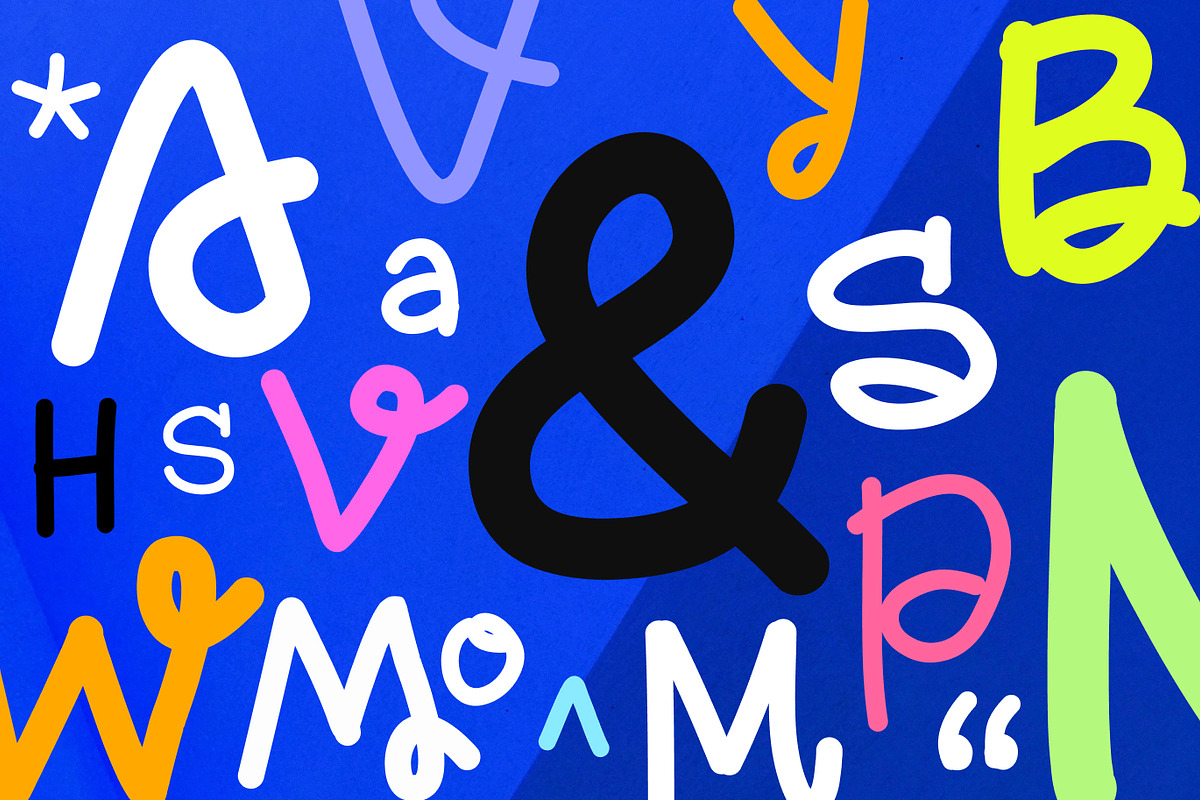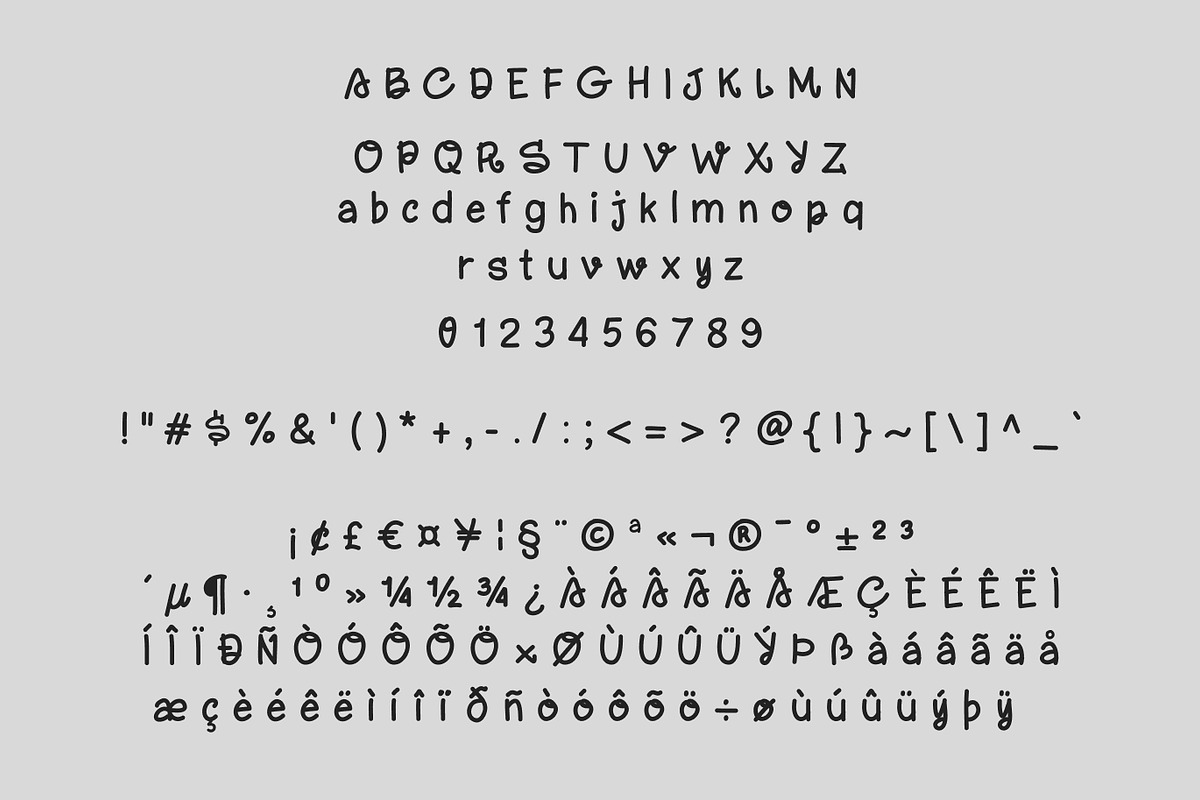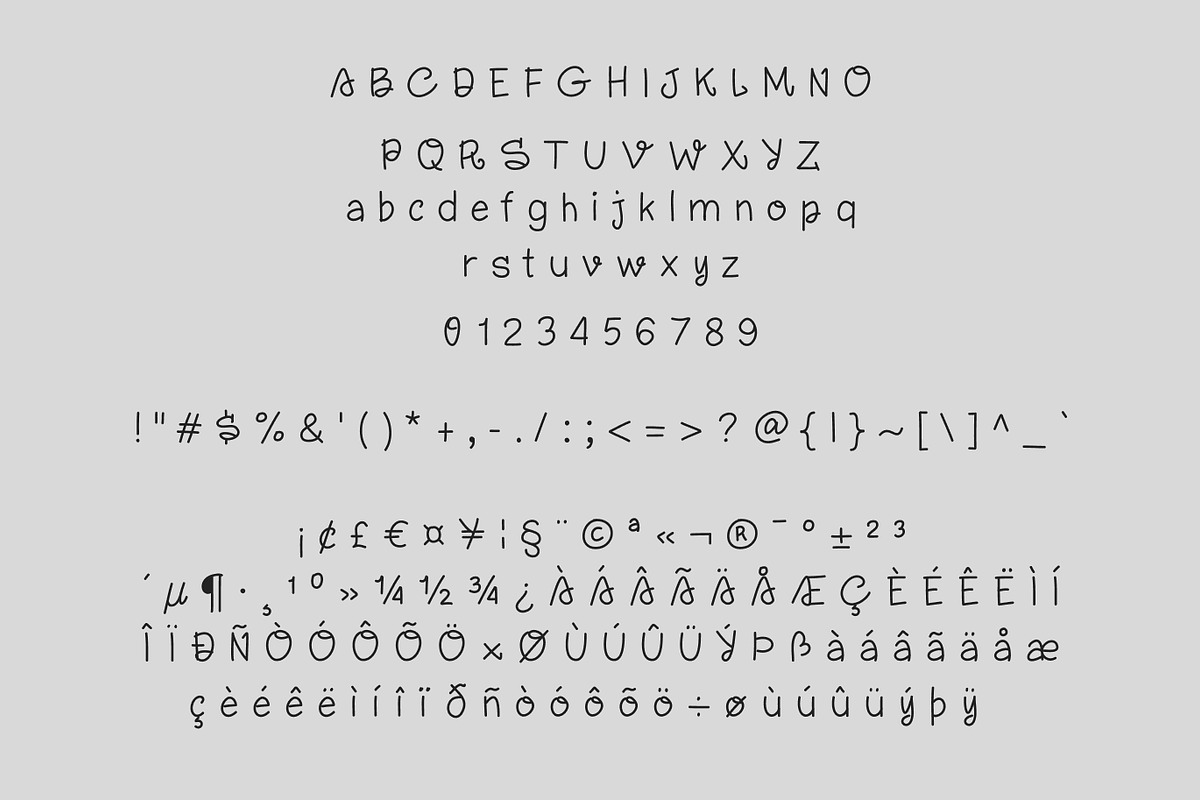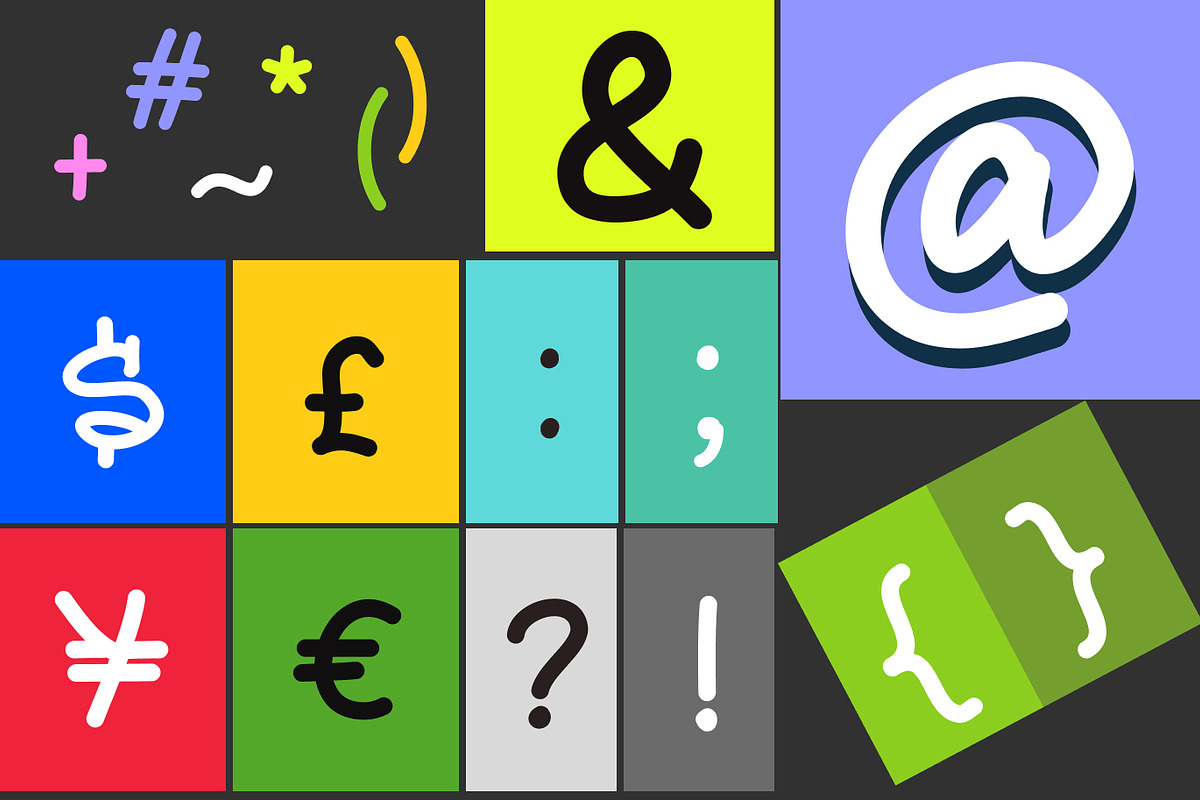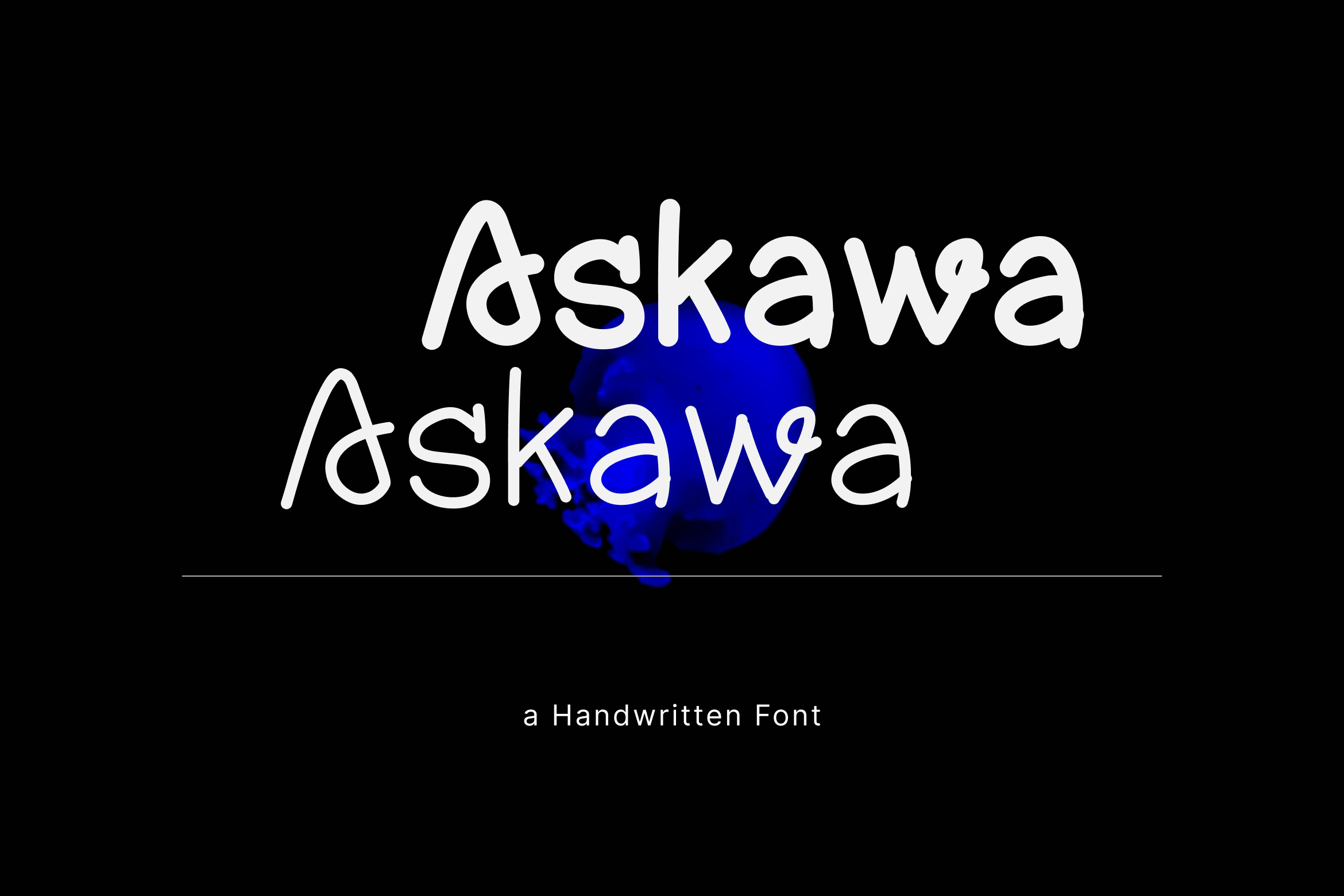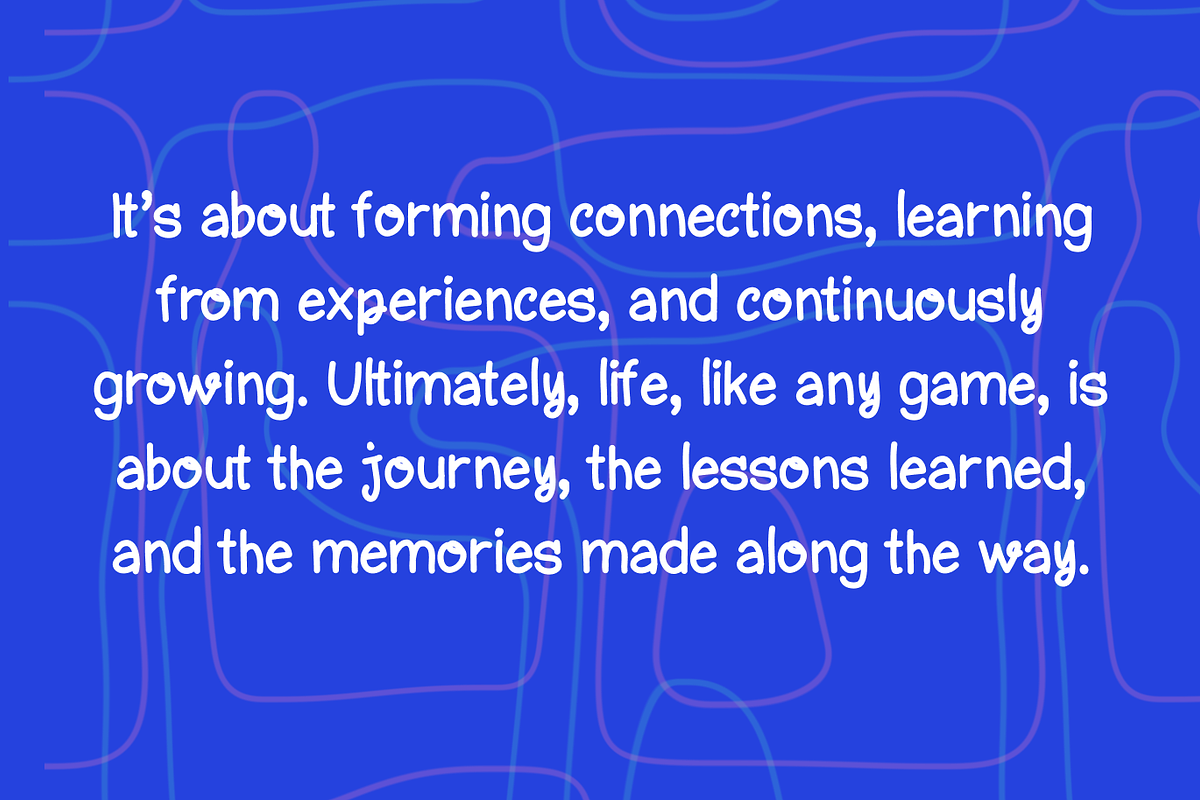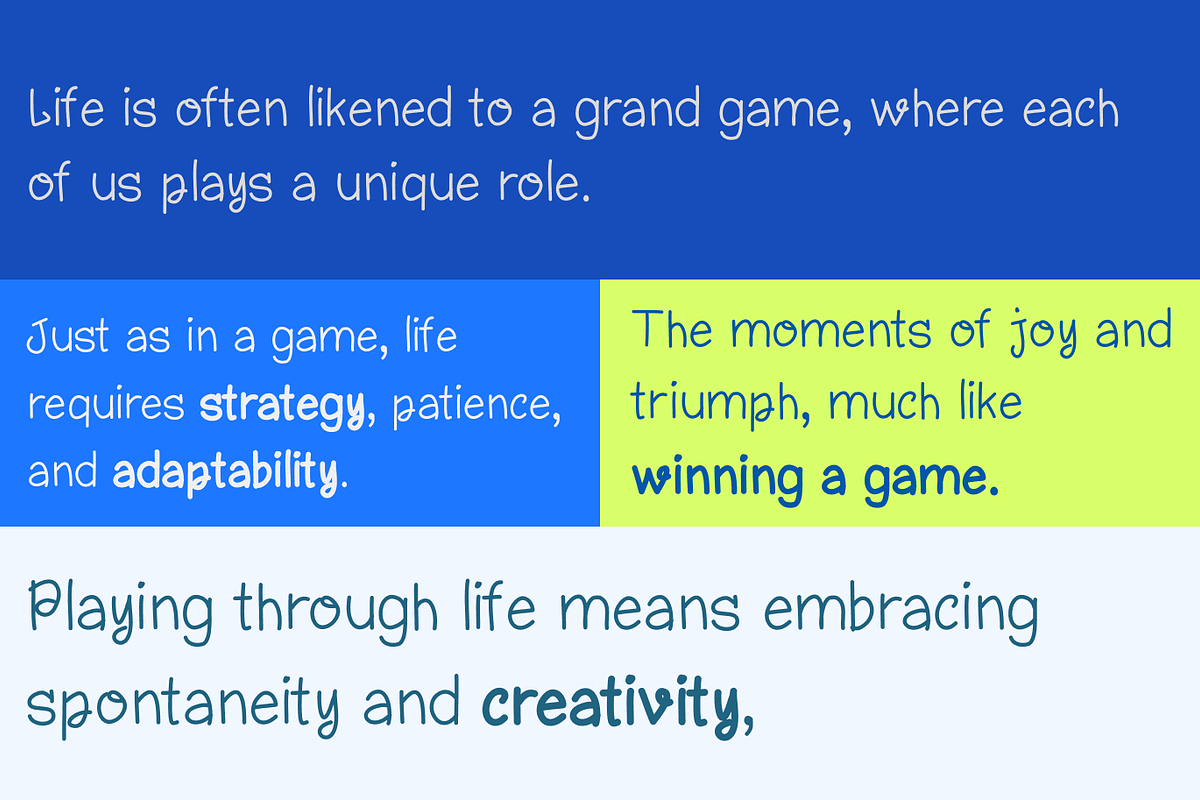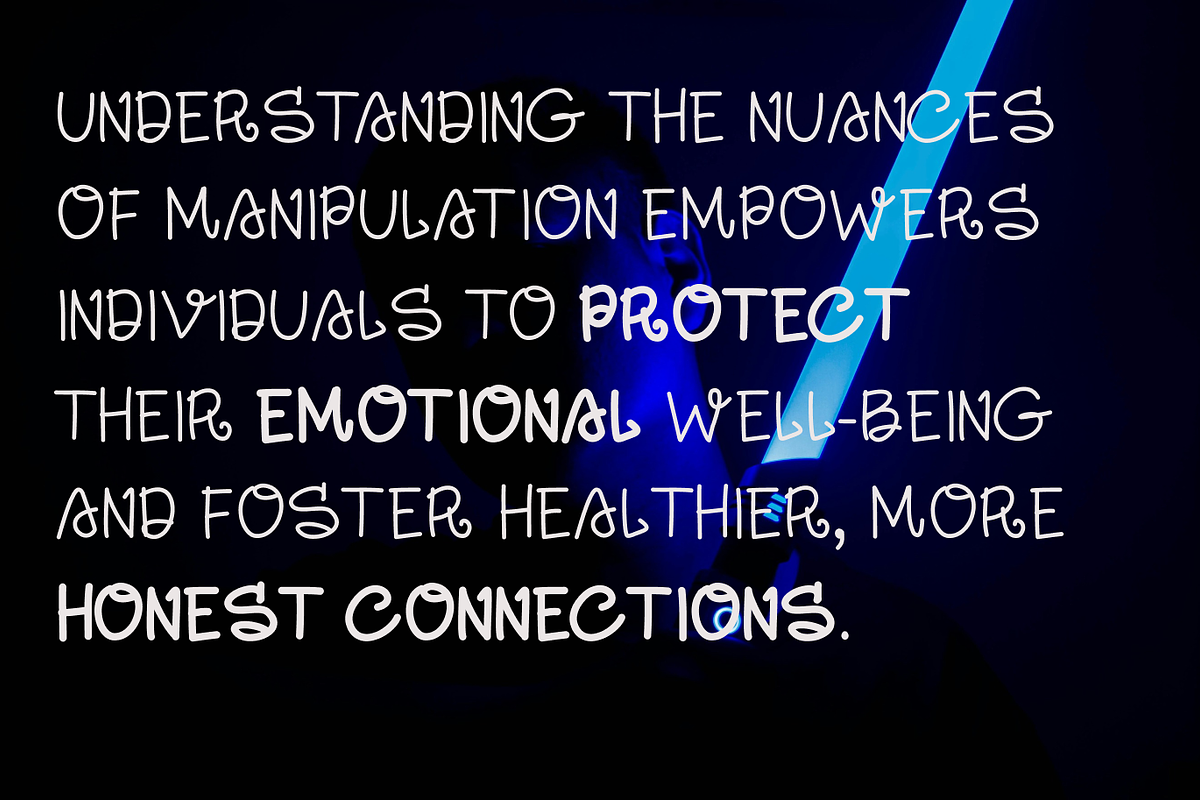
Askawa Hand-Drawn Font
Askawa, a hand-drawn typeface that combines the charm of handcrafted letters with a touch of uniqueness. Perfect for adding a personal and whimsical touch to your projects, Askawa is designed to stand out while maintaining readability and versatility.
Whether you're aiming for a playful, casual, or elegant look, Askawa adapts seamlessly to various design contexts. Its handcrafted style brings warmth and personality, making it a perfect choice for creatives who want to infuse their work with a touch of individuality.
Basic Latin A-Z and a-z
Number and Punctuation Symbols
Latin Accent